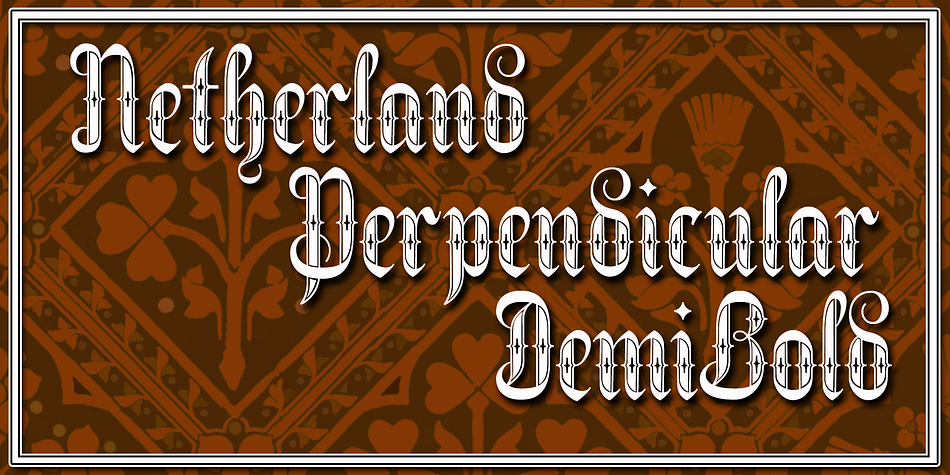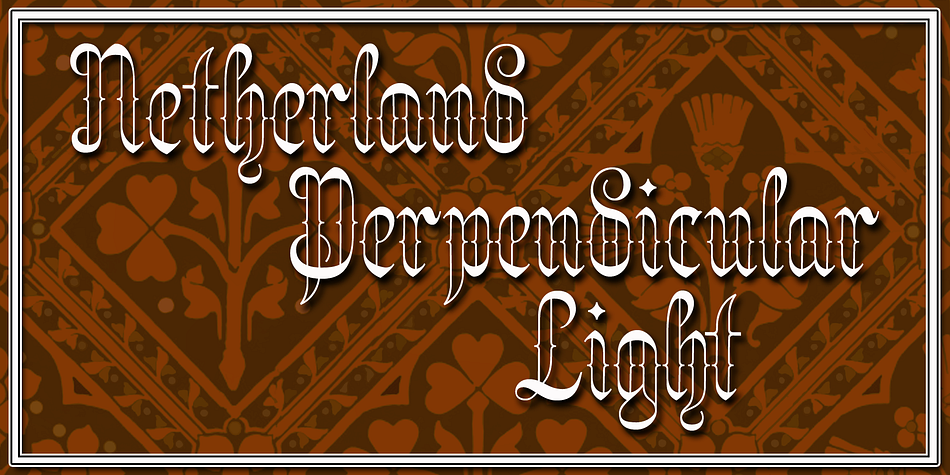
Netherland Perpendicular
Netherland Perpendicular is a blackletter font family. This typeface has five styles and was published by Greater Albion Typefounders.
Netherland Perpendicular, a family of five typefaces, is Greater Albion’s end of year Blackletter release for 2015.
It is designed in the fine traditions of Victorian Revival Blackletter, where historical veracity is ever sacrificed to aesthetic calm.
The five typefaces share uniform metrics, making for charming colour overlay effects.